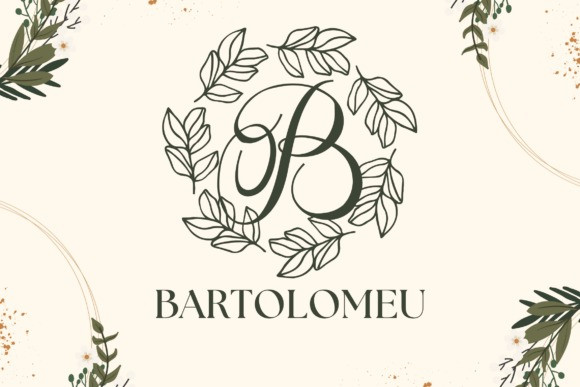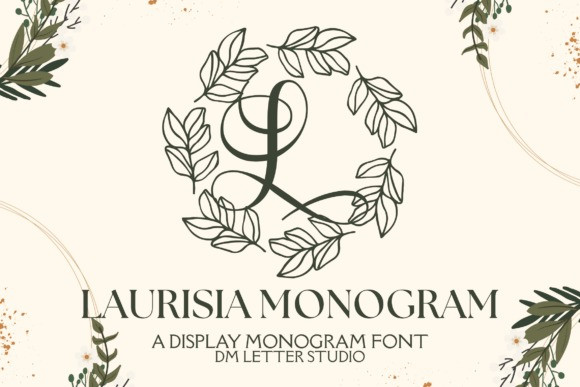
Laurisia Monogram Font
Laurisia Monogram Font turns simple initials into graceful laurel-inspired emblems that feel elegant, romantic, and premium. The strokes are smooth and balanced, so letters stay clear at any size. Because counters remain open, tiny tags print crisp while large signage looks refined and formal. Use it for wedding suites, boutique logos, keepsake gifts, wax seals, stationery, and luxury packaging. As a result, your designs gain a timeless crest look that feels gift-ready right away.